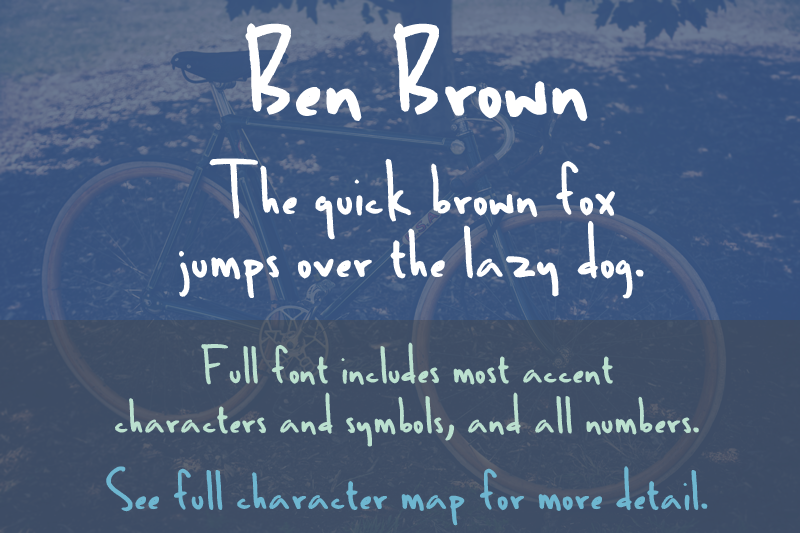
Ben Brown is a font made of my older brother’s neat handwriting. It was first created in October of 2000, and has since been updated with several new characters, including accents. This is a DEMO version of the font. It includes only uppercase and lowercase letters. You can use the demo version for personal use. The full version of the font, which can be purchased very very cheaply at QuickBrownFoxFonts.com, also contains numbers, most puncuation, most accent characters, and many symbols. You can view the full character map at QuickBrownFoxFonts.com. Purchase of the full version entitles you to a full license of the font, with which you can use the font commercially in any project. |